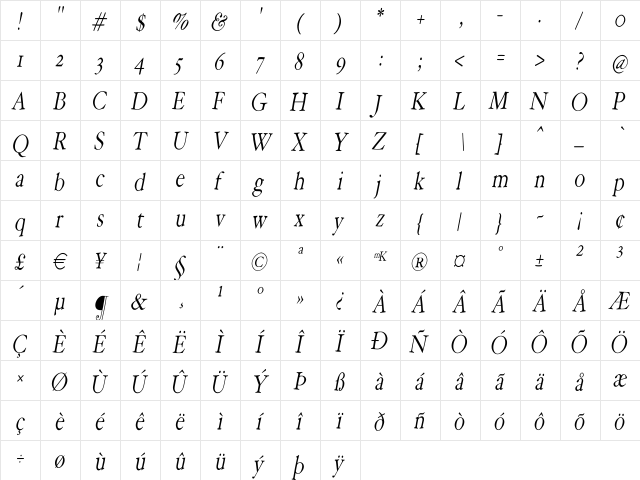
HoffmanFL Medium Italic
Design Context for HoffmanFL Typeface
HoffmanFL offers clean, dependable letterforms without strong stylistic allegiance, making it a practical choice for designers who need flexibility. The slanted form adds forward momentum and visual energy.